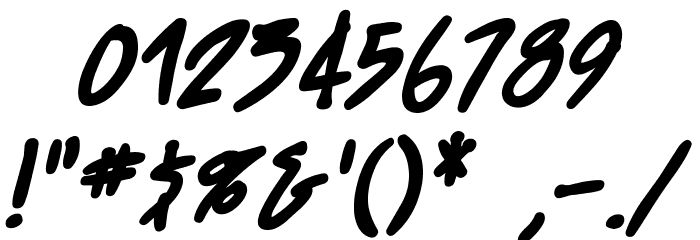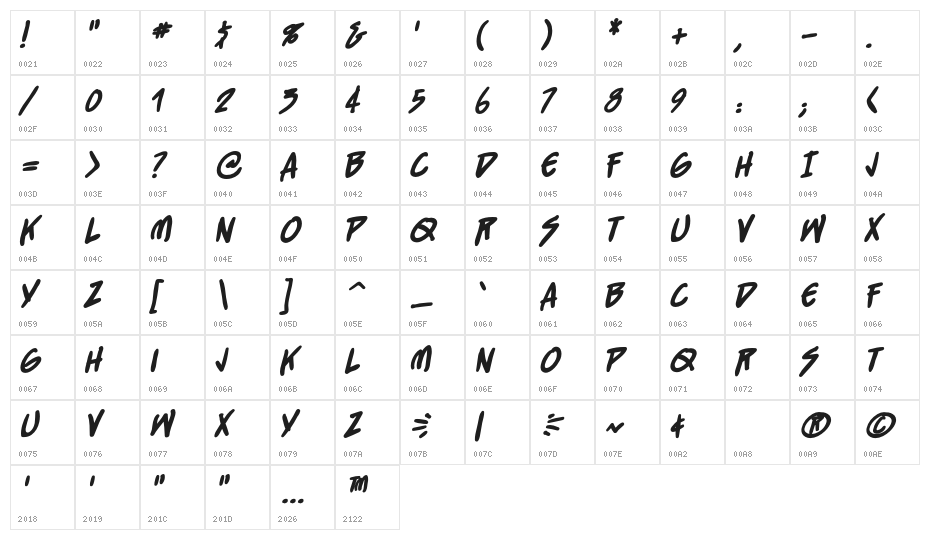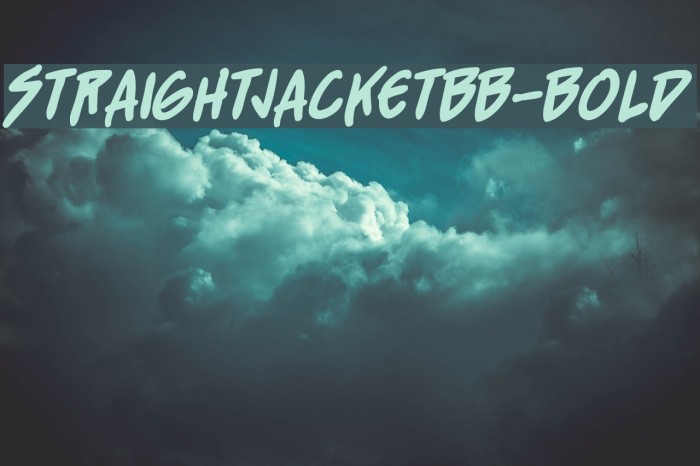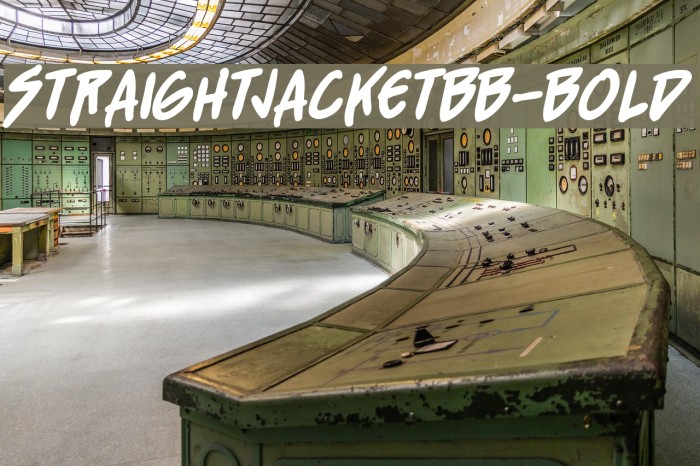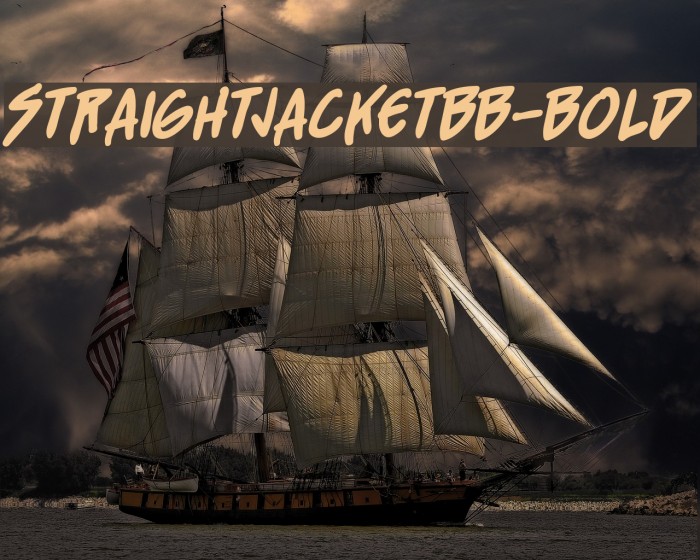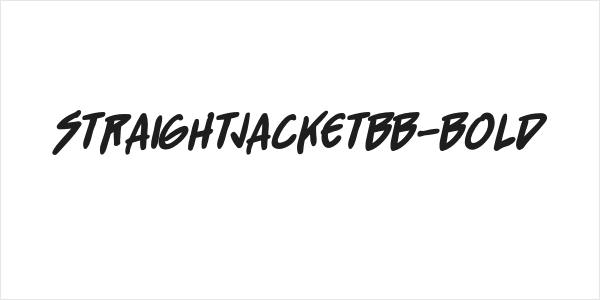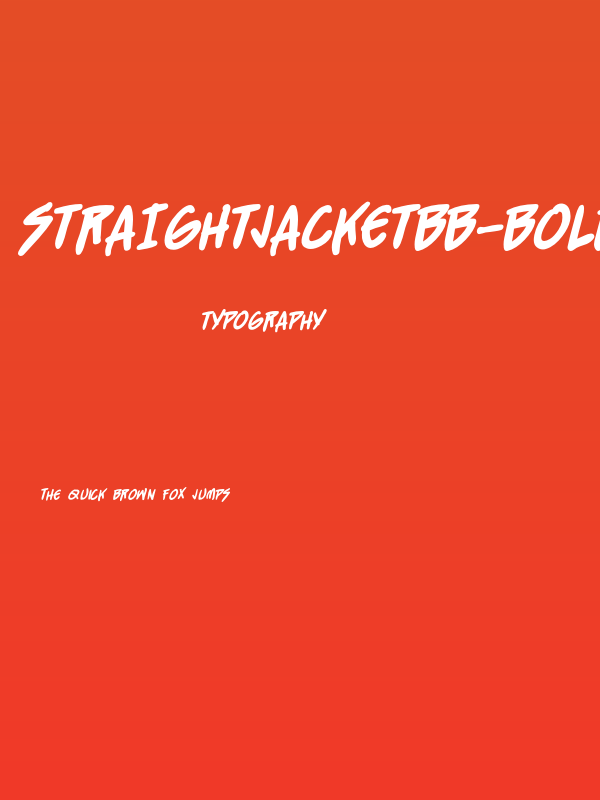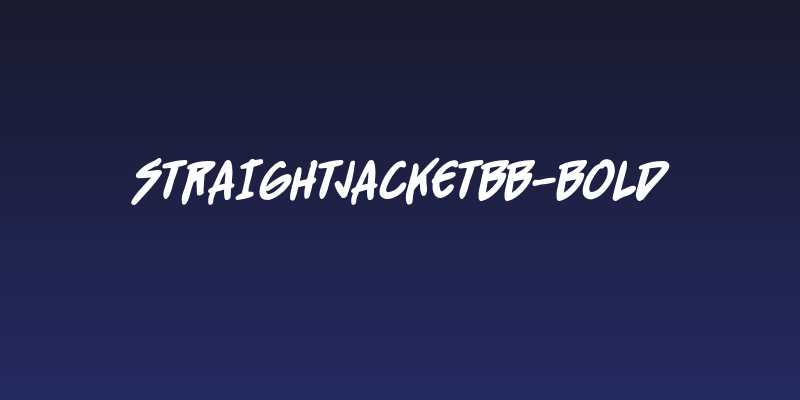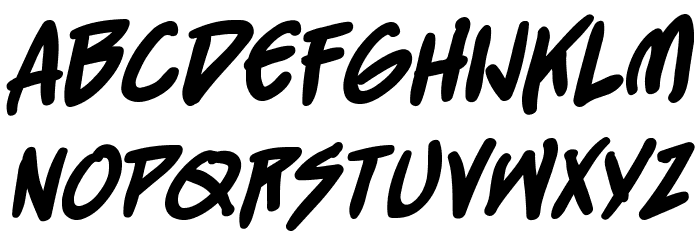
StraightJacketBB-Bold Font
StraightJacketBB-Bold Description
This font exudes a bold and dynamic presence with its thick, brush-like strokes that convey a sense of energy and movement. The characters are slightly slanted, giving it a casual, handwritten feel while maintaining a structured and cohesive appearance. The uppercase and lowercase letters are well-balanced, with a consistent stroke width that enhances readability. The numerals and special characters are crafted with the same attention to detail, ensuring uniformity across all glyphs. This font is ideal for projects that require a strong, impactful visual statement.